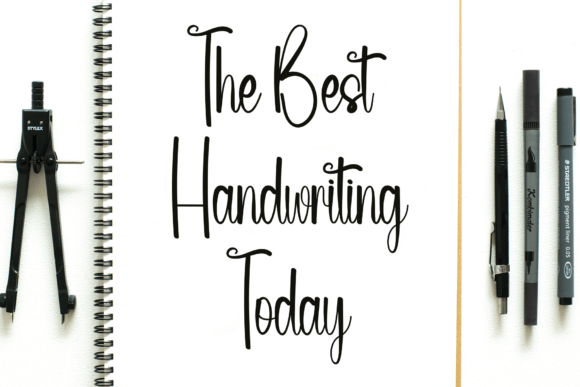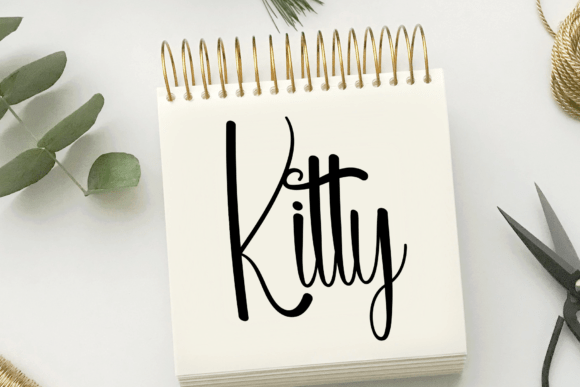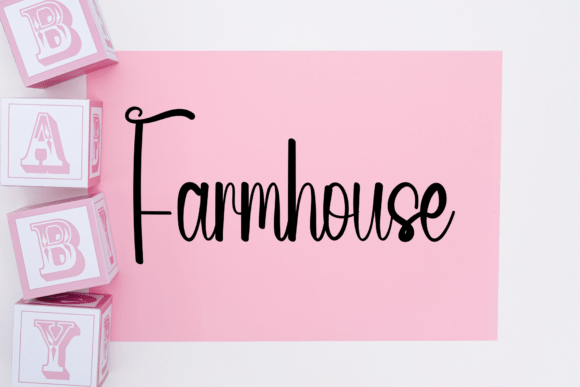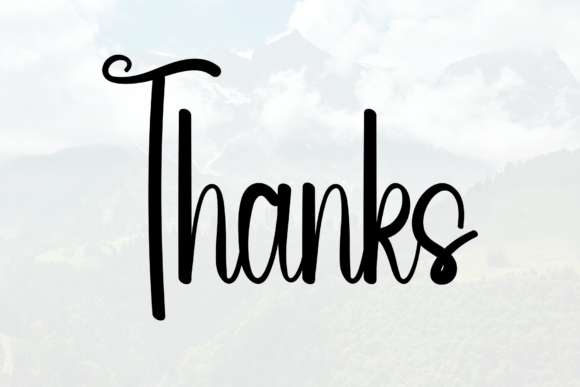
Discover the Charm of Carligton Font: Elevate Your Designs with a Touch of Elegance and Casual Sophistication
In the world of typography, fonts play a pivotal role in conveying the tone and personality of a brand or design. Among the myriad of fonts available, Carligton stands out for its unique charm and versatility. This handwritten font, which bears the appearance of being drawn with a marker, offers a relaxed and sporty feel, making it an excellent choice for a wide range of design projects. In this article, we’ll delve into the characteristics of Carligton font, explore its uses, and discuss how it can elevate your designs with its luxurious, elegant, yet casual appeal.
The Essence of Carligton Font
Carligton font is distinguished by its hand-drawn, marker-like quality, which sets it apart from more traditional and formal typefaces. Its strokes are fluid and somewhat irregular, giving it a personal and approachable feel. This characteristic makes Carligton an ideal choice for designers looking to infuse their work with a sense of warmth and authenticity.
One of the key advantages of Carligton font is its versatility. Its relaxed and sporty feel makes it suitable for a variety of design applications, including:
- Branding and Logos: Carligton can help create a memorable brand identity that stands out for its friendliness and approachability.
- Wedding Supplies and Greeting Cards: Its elegant yet casual nature makes it perfect for wedding-related designs, greeting cards, and other personal stationery.
- Fashion and Lookbooks: For fashion designers and brands, Carligton offers a stylish way to present their collections and promotional materials.
- Marketing Promotions: Whether it’s for social media campaigns, flyers, or brochures, Carligton can add a touch of sophistication and charm to marketing materials.
Achieving Luxury and Elegance with a Casual Twist
Carligton’s unique blend of elegance and casualness allows designers to create luxurious-looking designs without sacrificing a friendly, approachable feel. This balance is particularly valuable in today’s design landscape, where brands strive to connect with their audiences on a personal level while maintaining a high level of professionalism.
To leverage Carligton’s potential for luxurious yet casual designs, consider the following tips:
- Pair with Complementary Fonts: Use Carligton as a headline font and pair it with a more traditional sans-serif or serif font for body text to create a balanced look.
- Experiment with Colors: While Carligton looks great in its natural color, experimenting with different hues can enhance its luxurious appeal. Metallic colors, pastels, or rich jewel tones can add depth and sophistication to your designs.
- Play with Textures and Patterns: Adding subtle textures or patterns can further enhance Carligton’s marker-drawn feel, giving your designs a unique and luxurious finish.
Carligton font offers a refreshing alternative to traditional typefaces, providing designers with a tool to create distinctive, elegant, and yet casually sophisticated designs. Its versatility and charm make it an excellent choice for a wide range of projects, from branding and logos to wedding supplies and marketing promotions. By incorporating Carligton into your design repertoire, you can elevate your work with a touch of personality and luxury, ensuring your designs stand out in a crowded creative landscape.
Whether you’re a professional designer or a crafter looking for that perfect font to bring your project to life, Carligton is definitely worth exploring. Its ability to convey a sense of luxury, elegance, and casual sophistication makes it a valuable asset in the world of design.